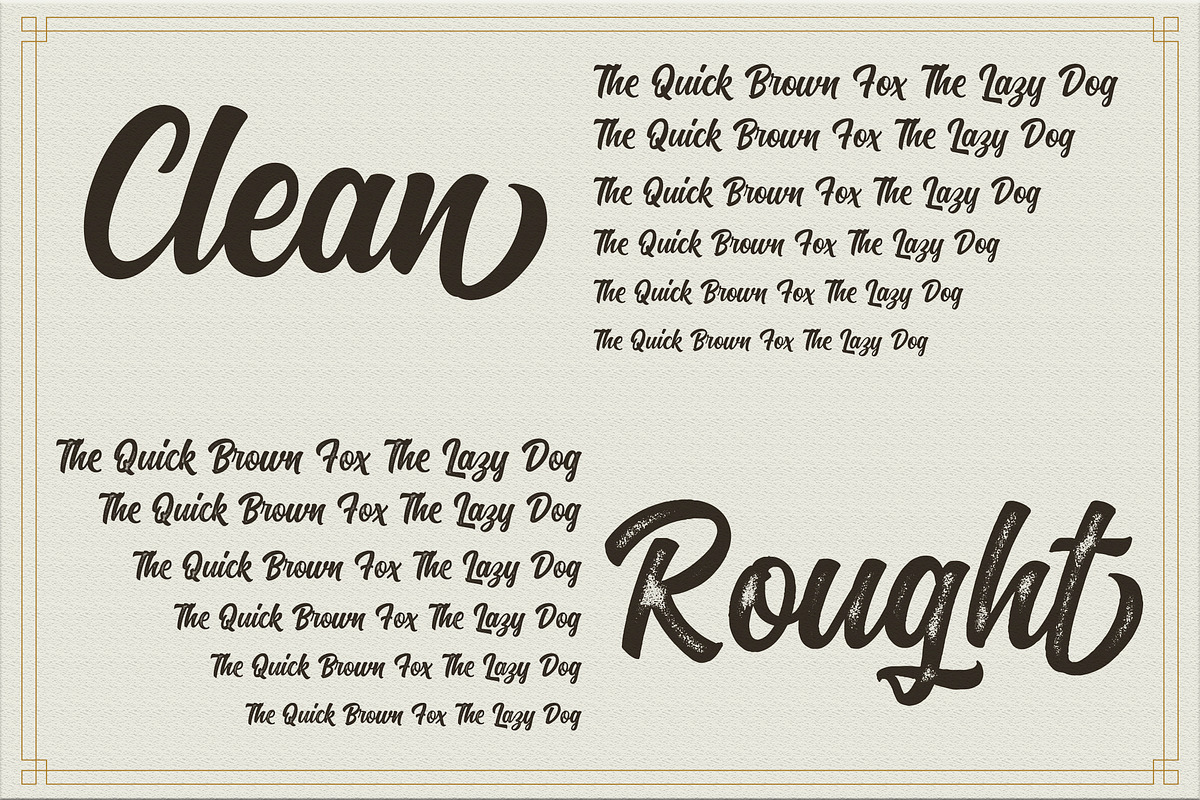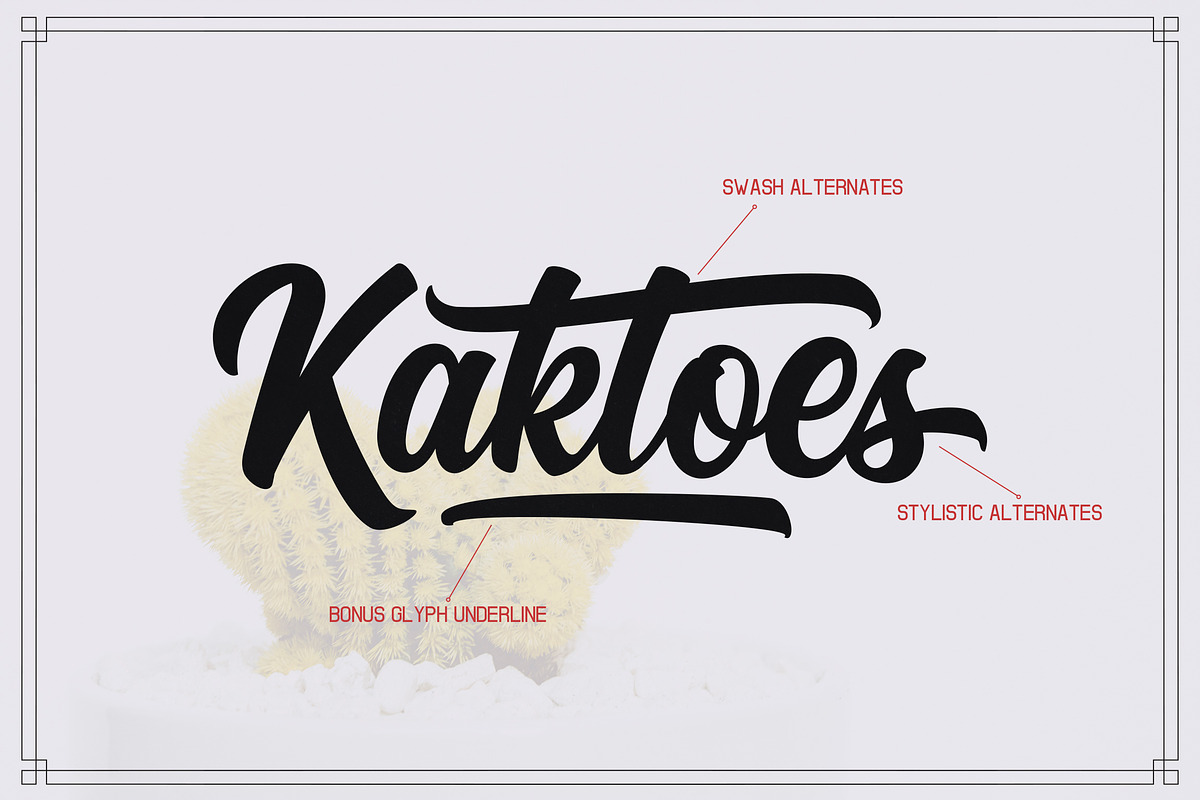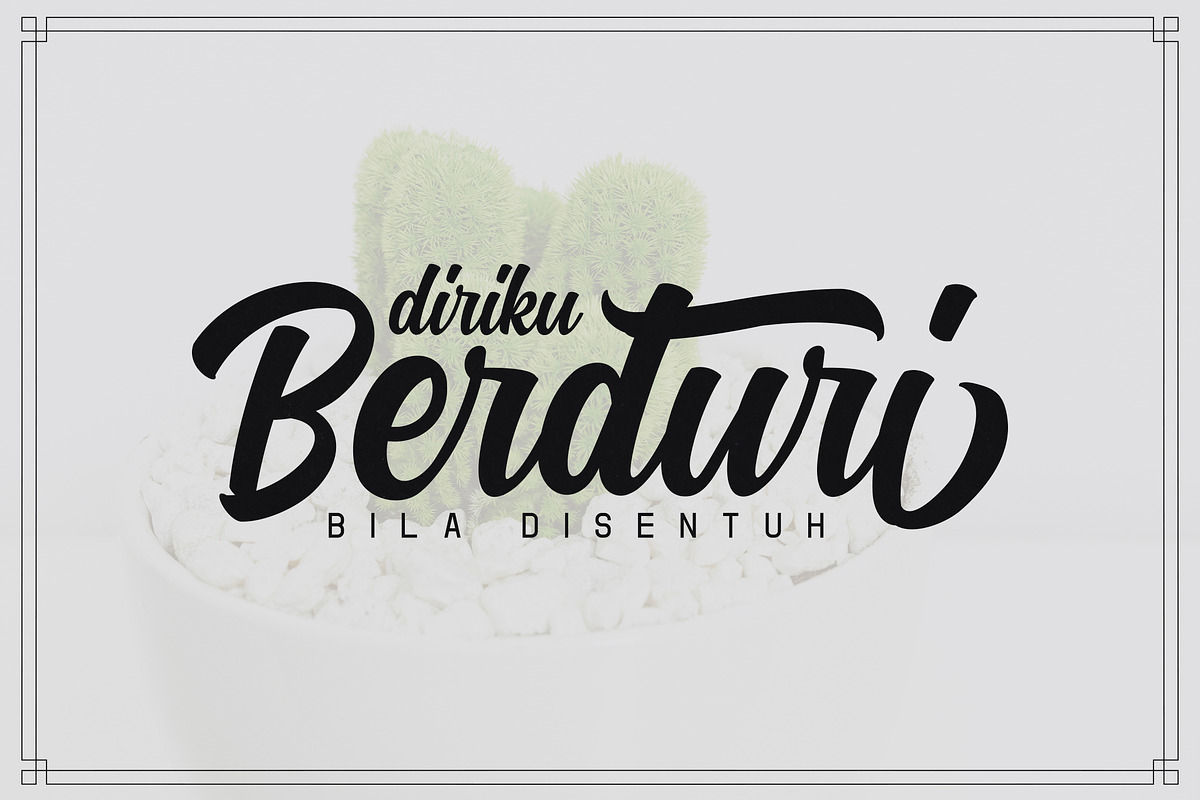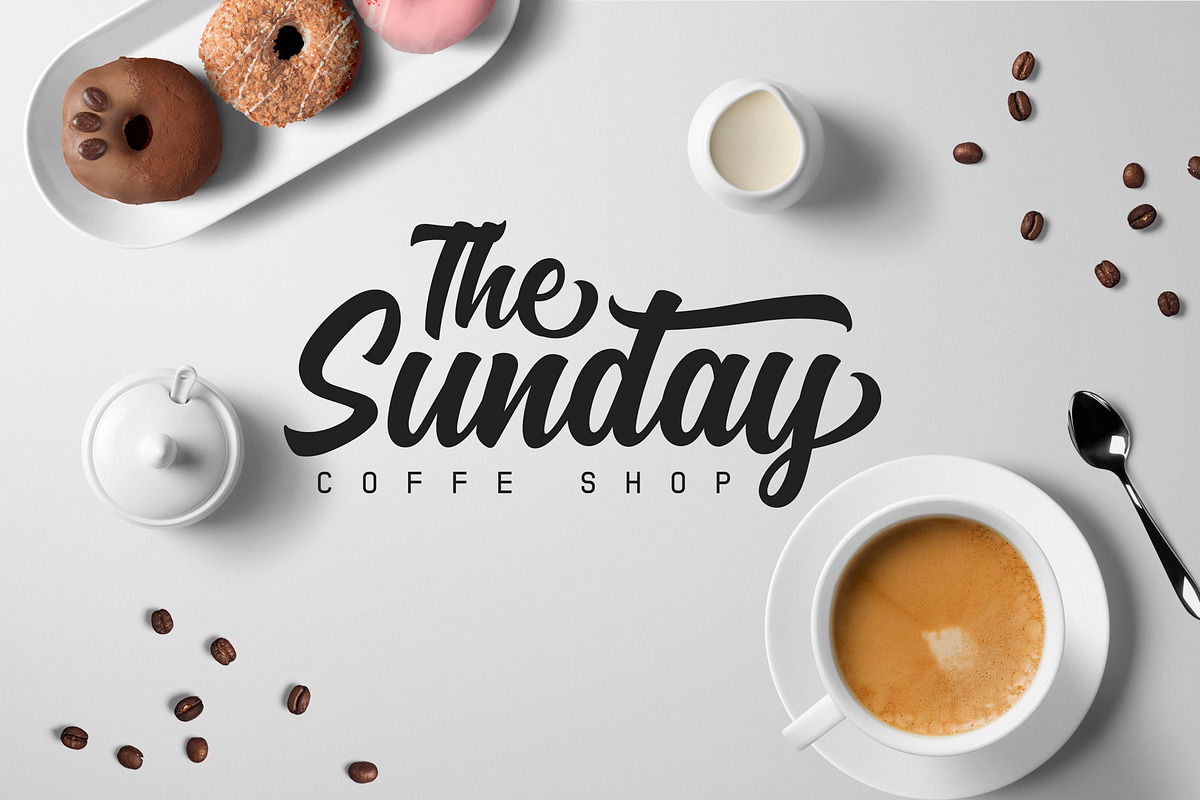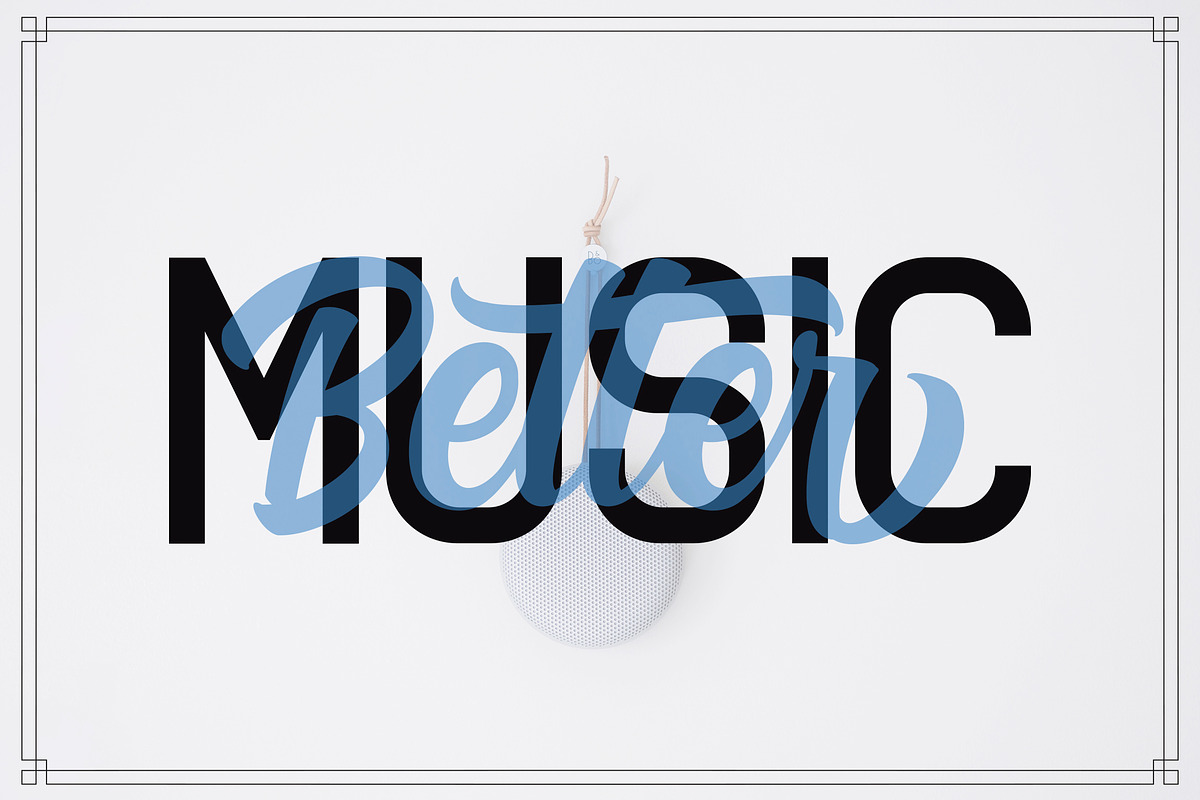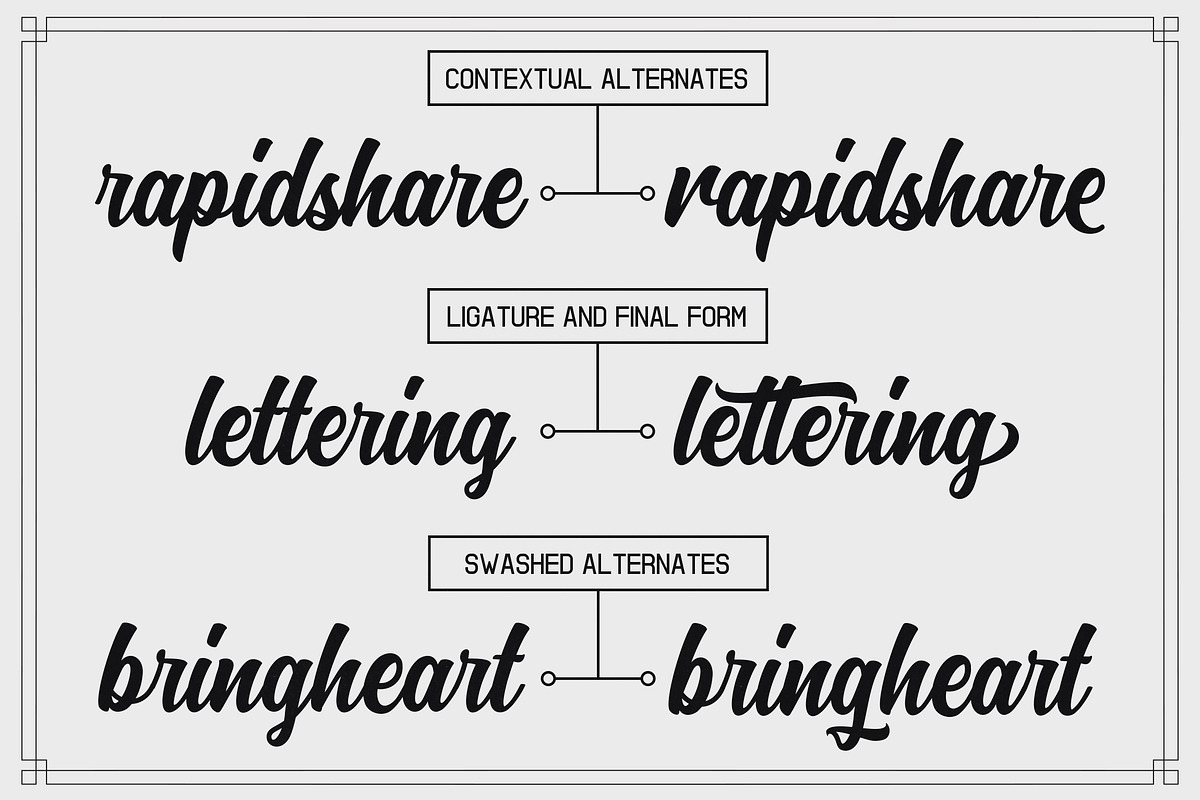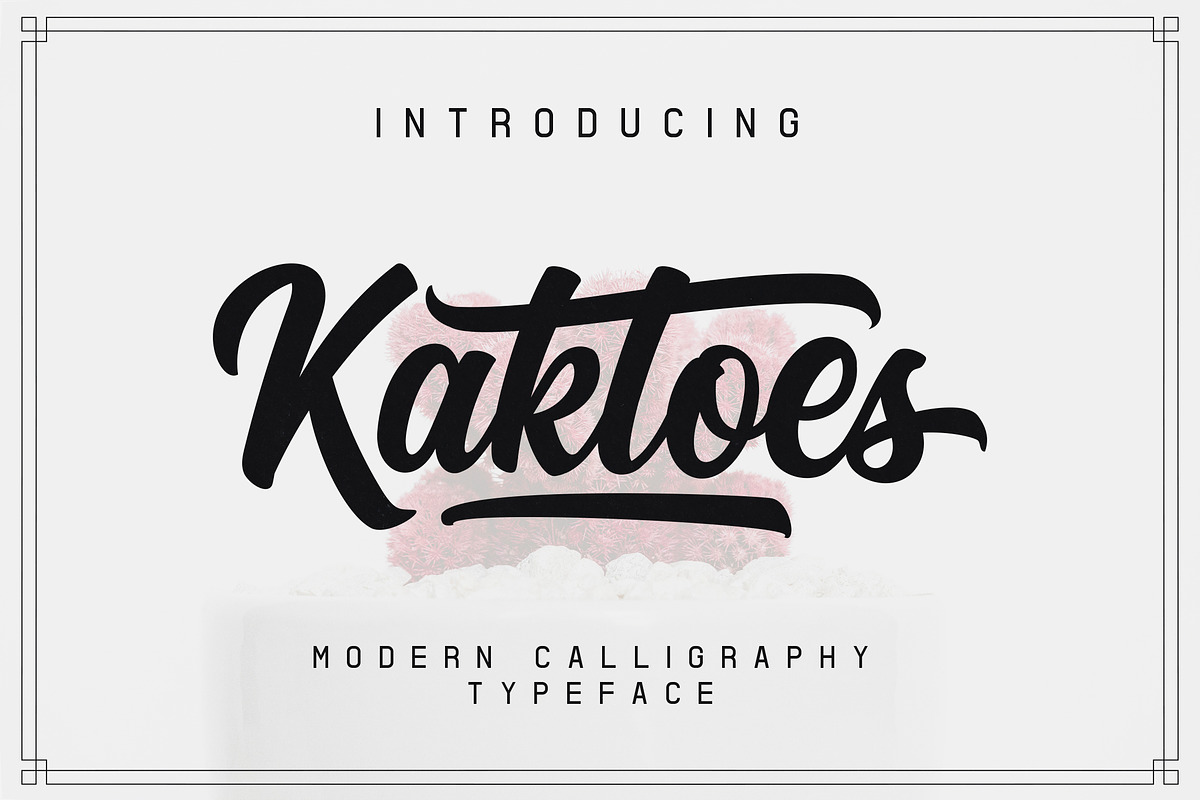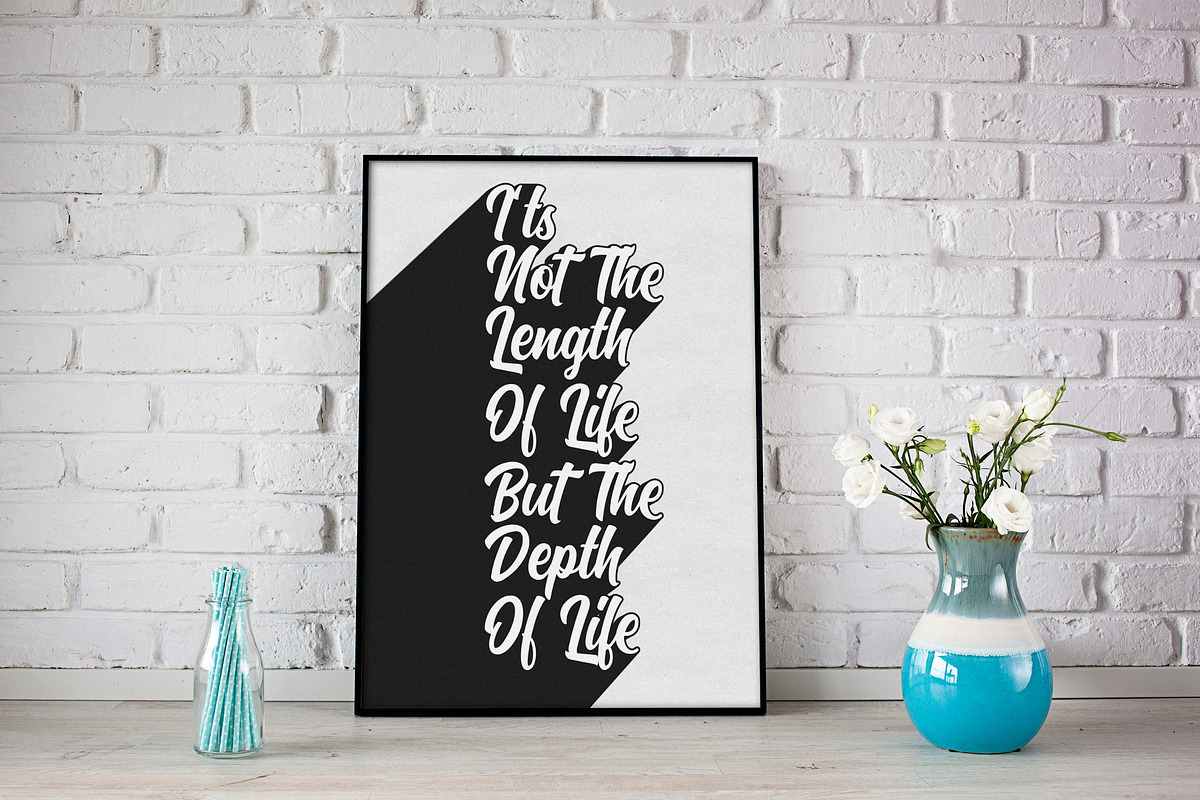
Kaktoes Script Font
Kaktoes is a manual lettering with type CLEAN and ROUGH + bonus UNDERLINE, These two font CLEAN and ROUGH + bonus UNDERLINE is a great combination for any product and bussines. Kaktoes comfortable for vintage design, classic design, photography, branding design, T-Shirt and many more.
Kaktoes Script Featured With :
Basic Character and Multilingual Character
Stylistic Sets - Contextual Alternates
Stylistic Alternates and Terminal Forms
CLEAN and ROUGH Style